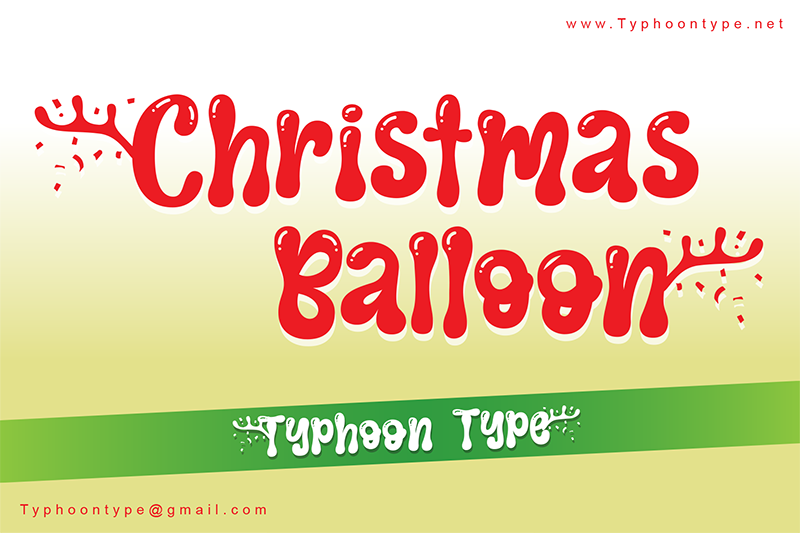
Preview and download Christmas Balloon Font. Created by Typhoon Type - Suthi Srisopha in Holiday Christmas styles with Free for personal use license.
Type ( before word to get beginning Reindeer Antlers and Type ) after word to get the ending Reindeer Antlers. Example : (Christmas Balloon) ���������������������������� Hello, please contact me before using my fonts for commercial purposes. My fonts are only permitted for free use in personal, non-profit, and charity projects. If you intend to make money from using my fonts, please purchase a commercial license here here : http://www.typhoontype.net/fonts/Christmas-Balloon/ https://www.creativefabrica.com/product/christmas-balloon-2/ref/179938/ Typhoon Type� - Suthi Srisopha� ��������������� typhoontype@gmail.com� http://www.typhoontype.net |